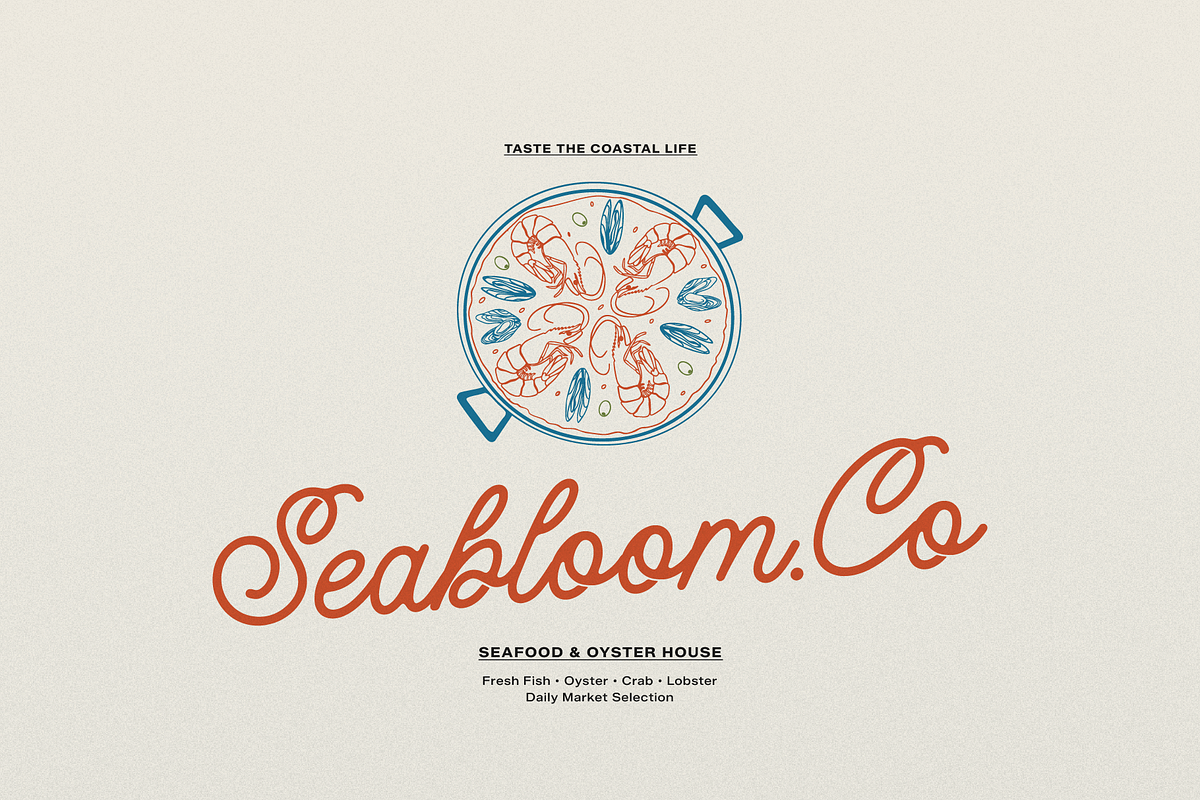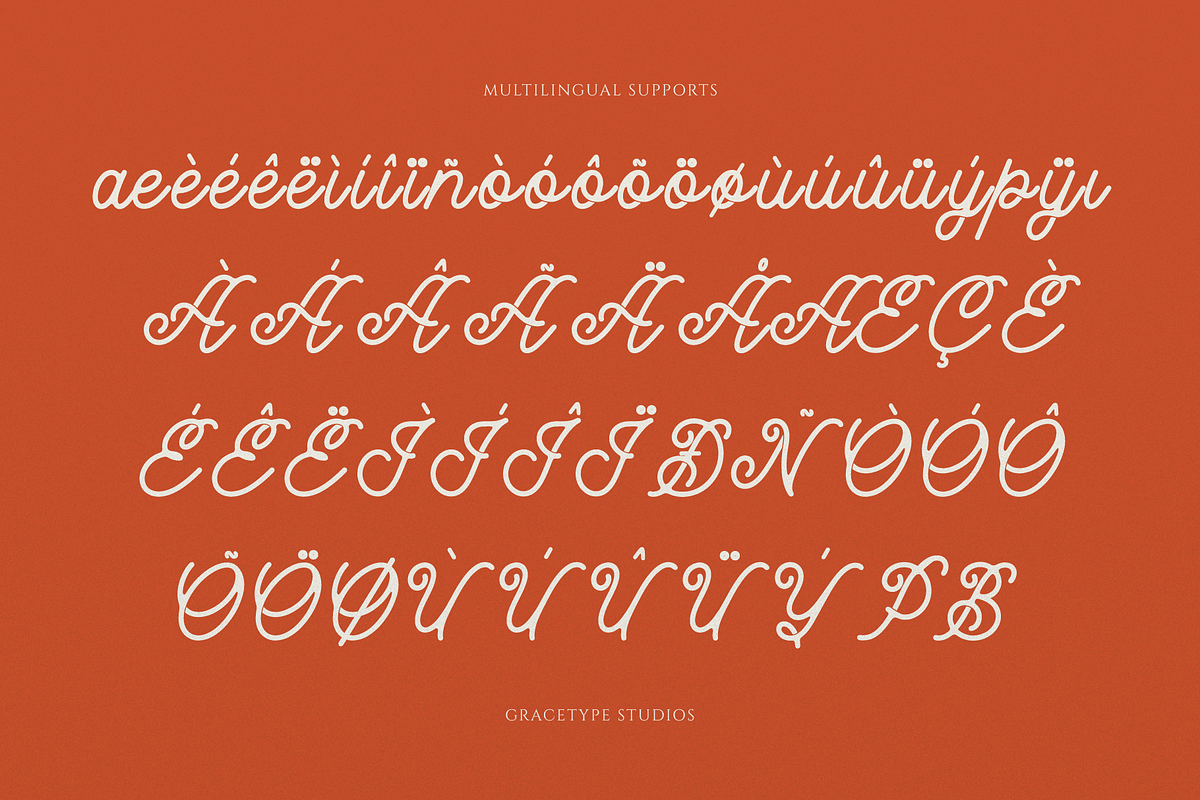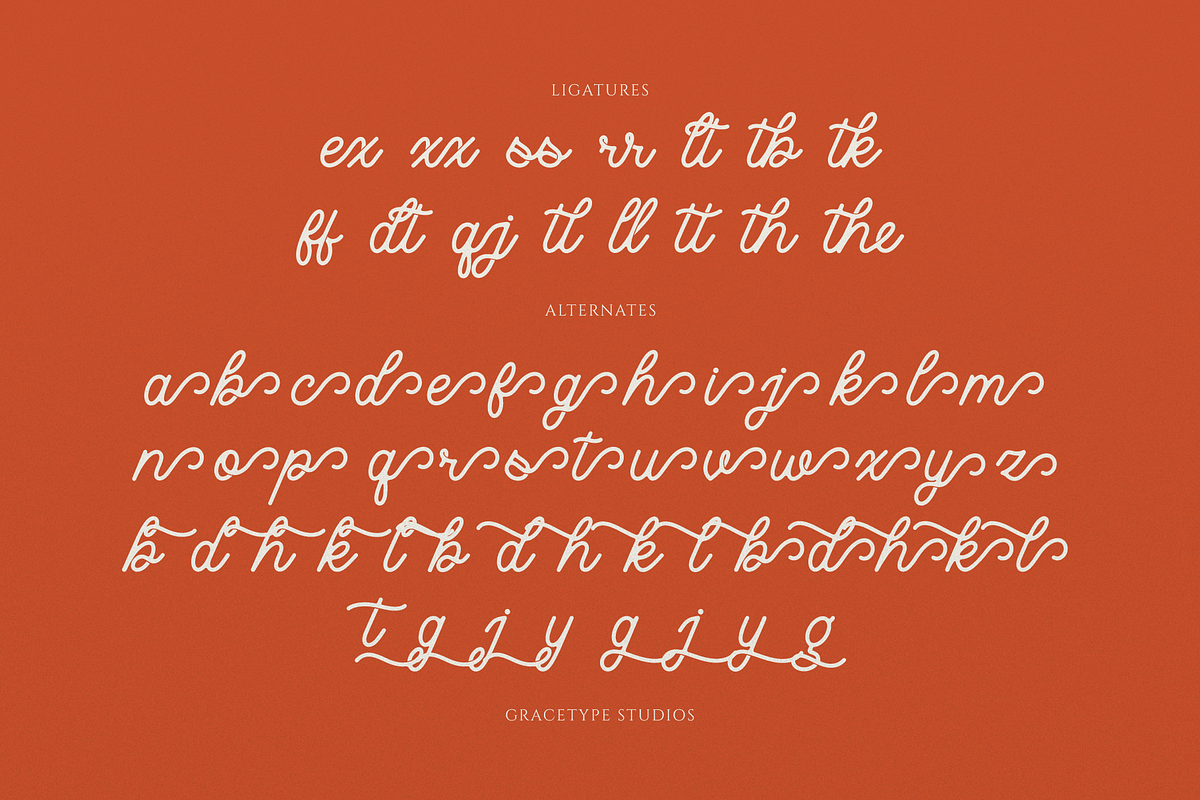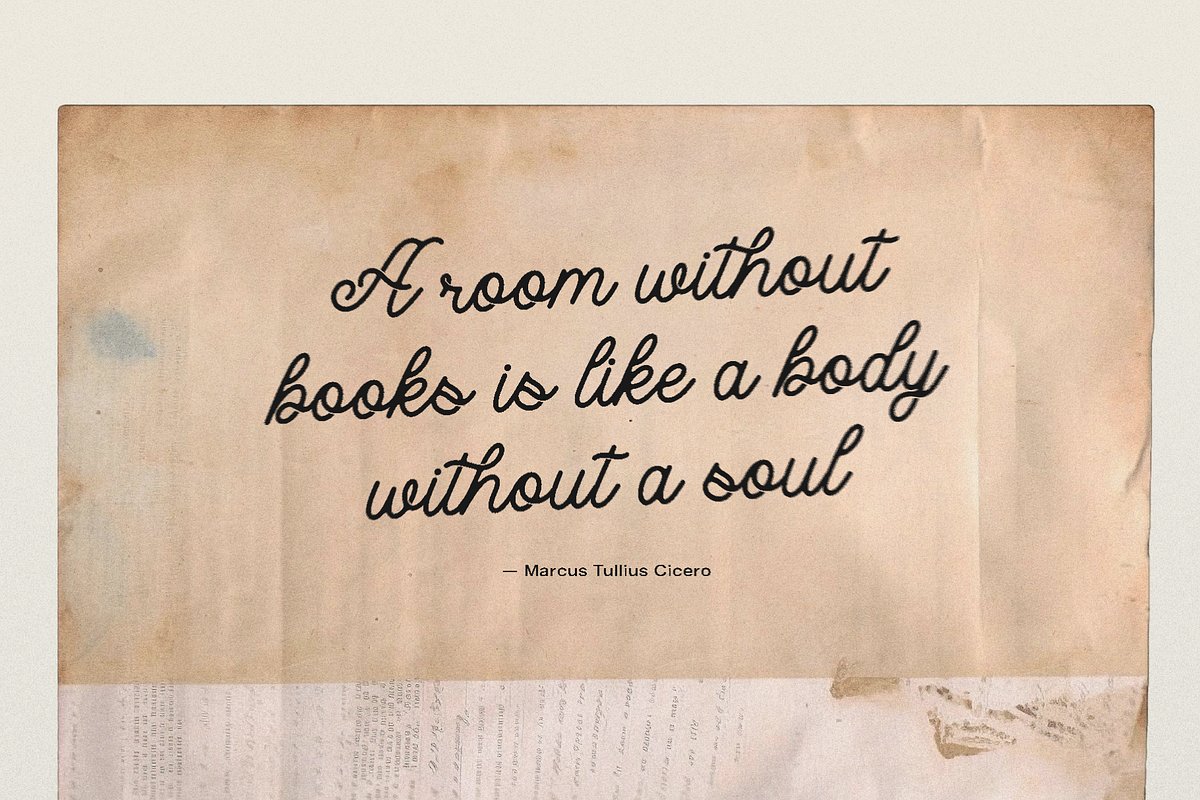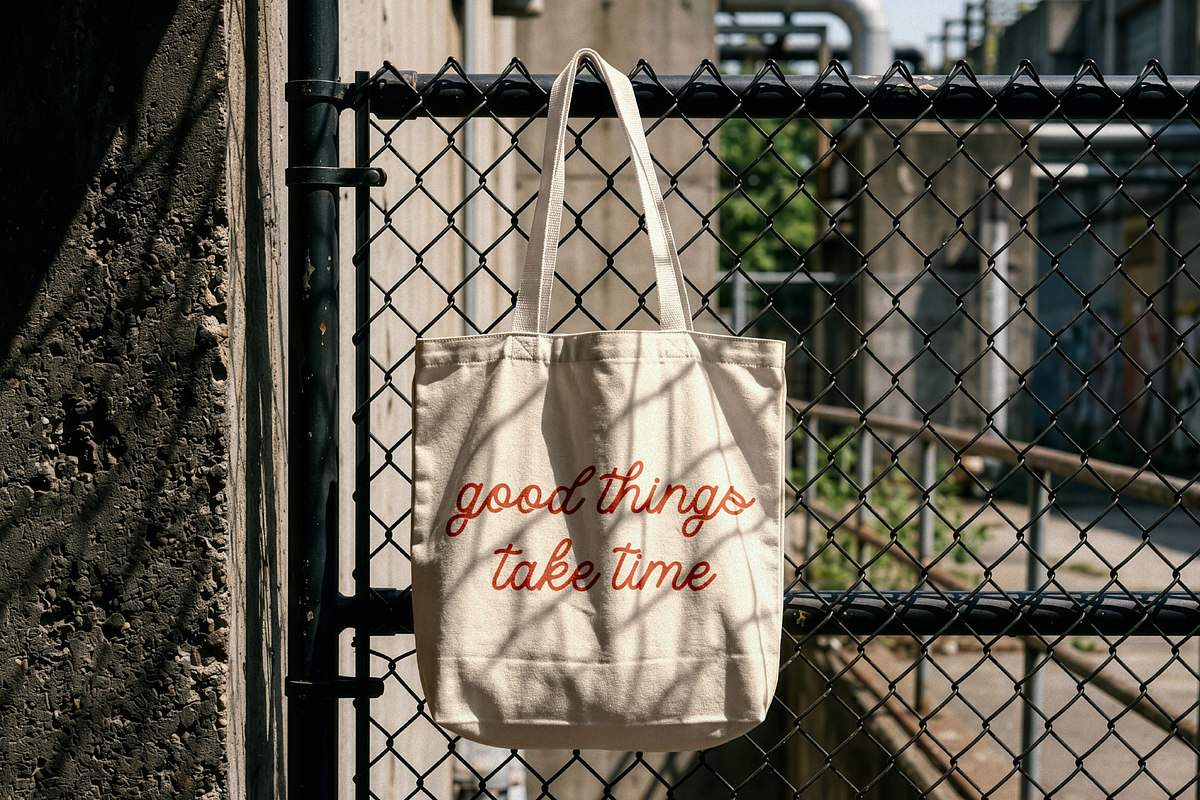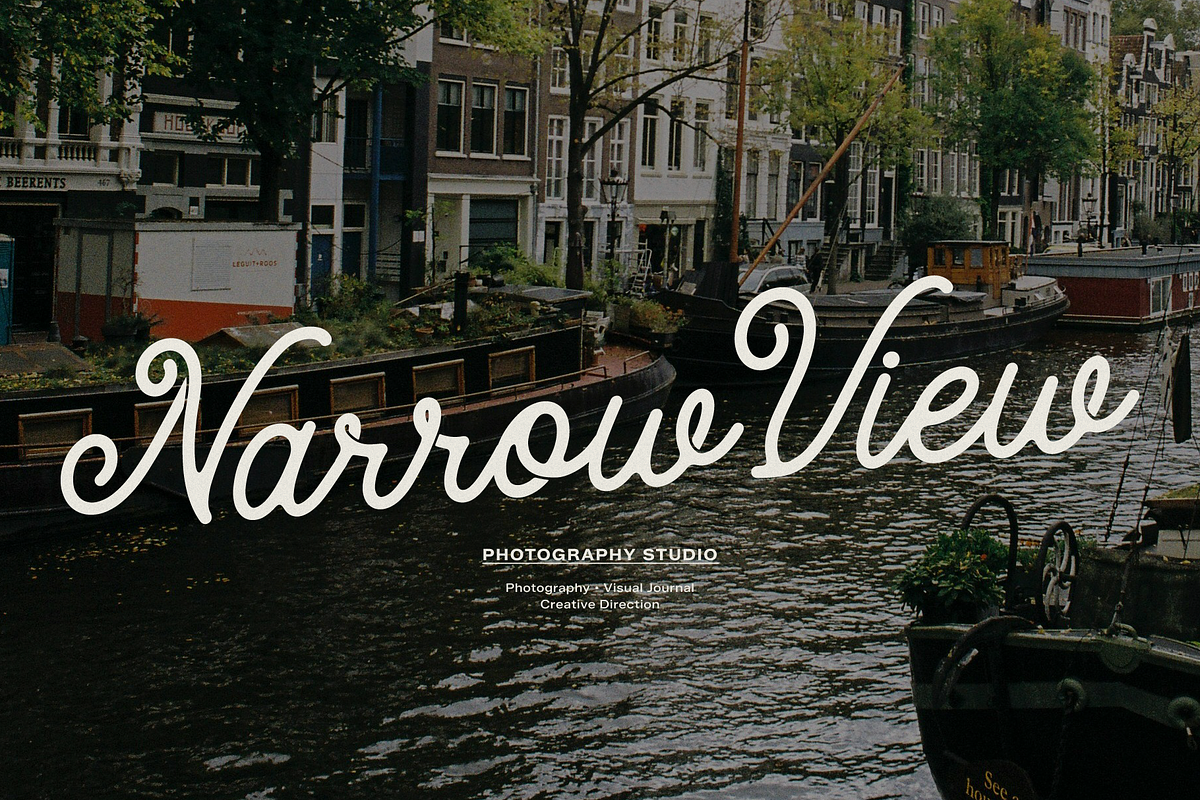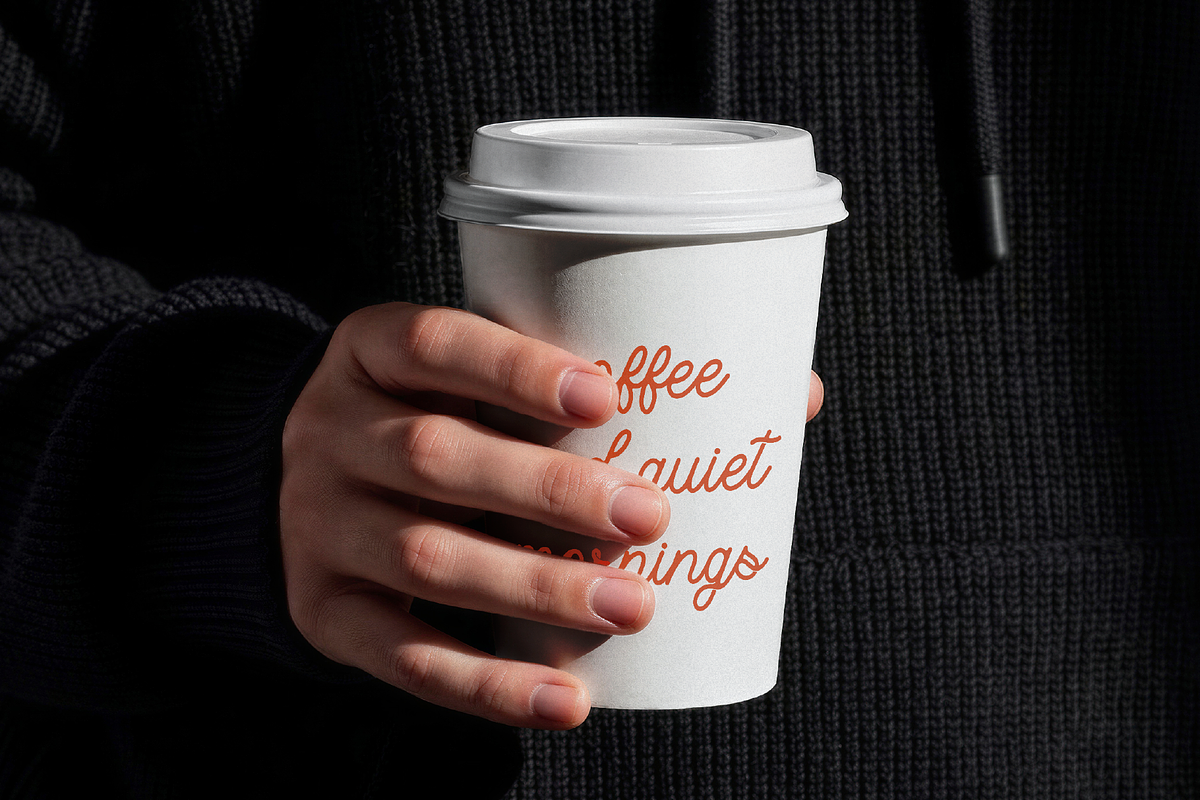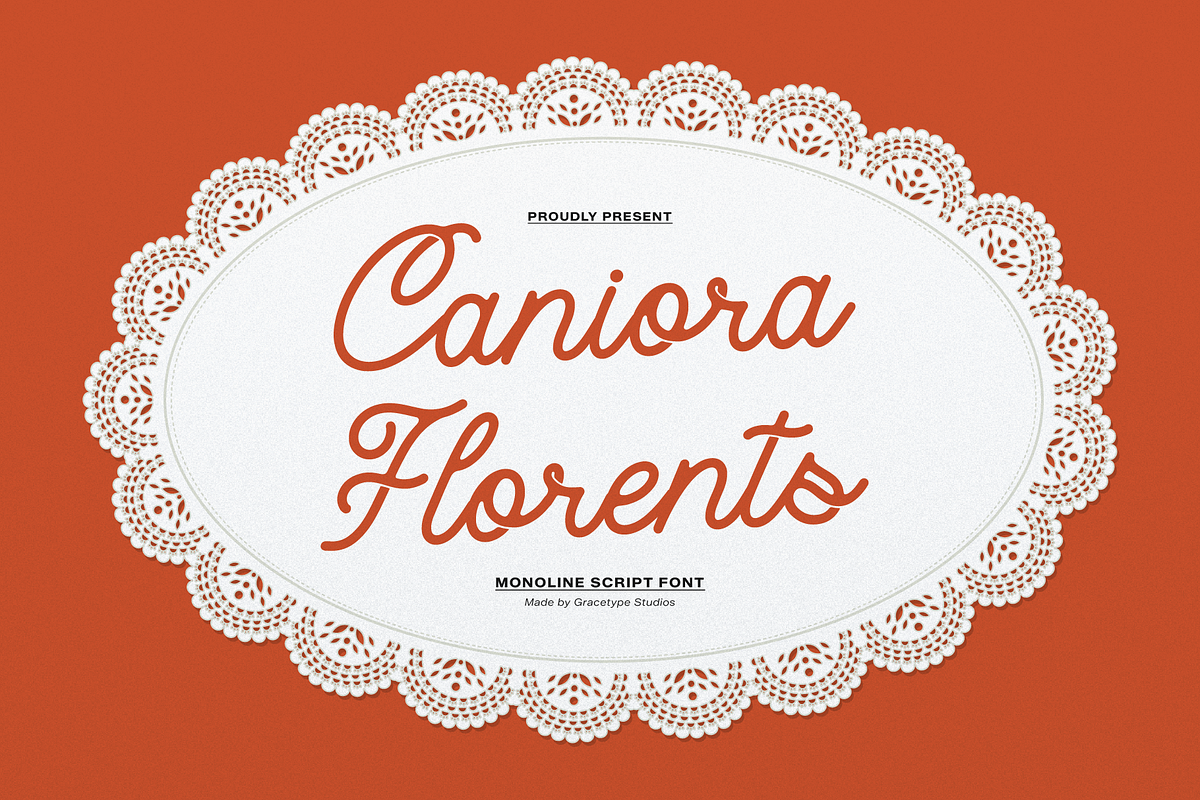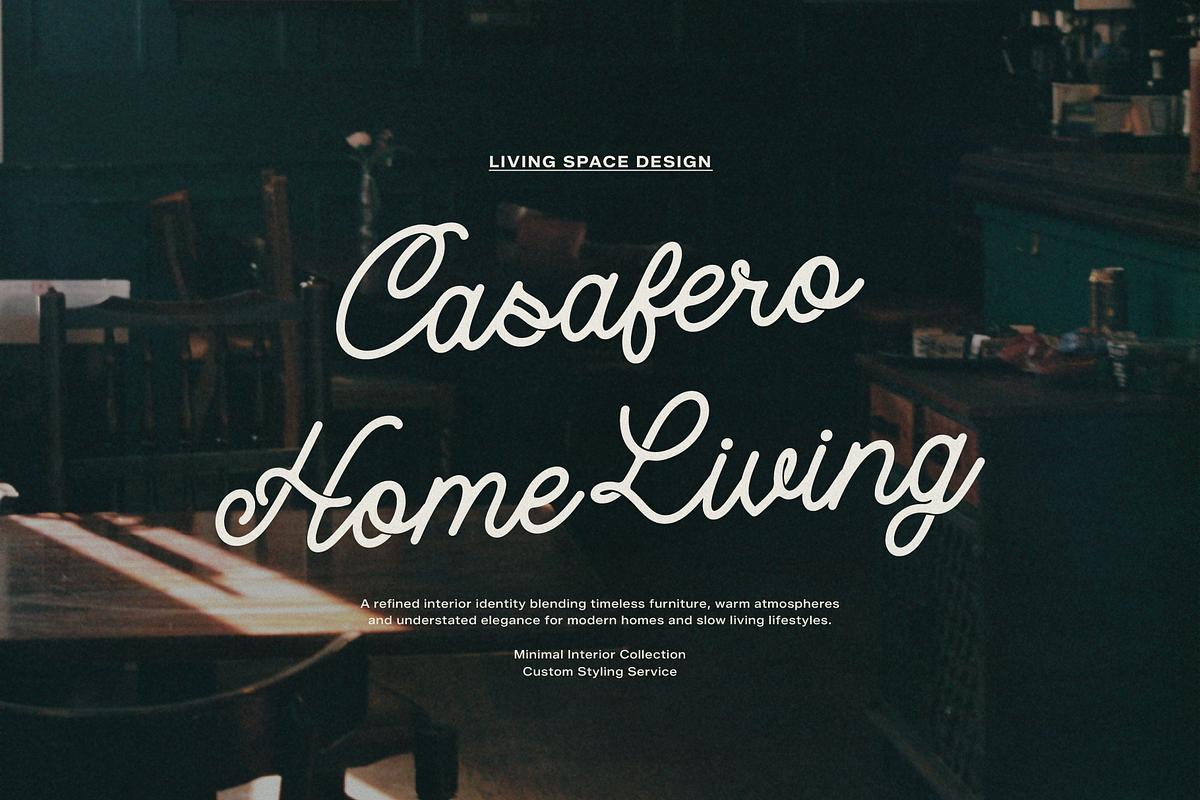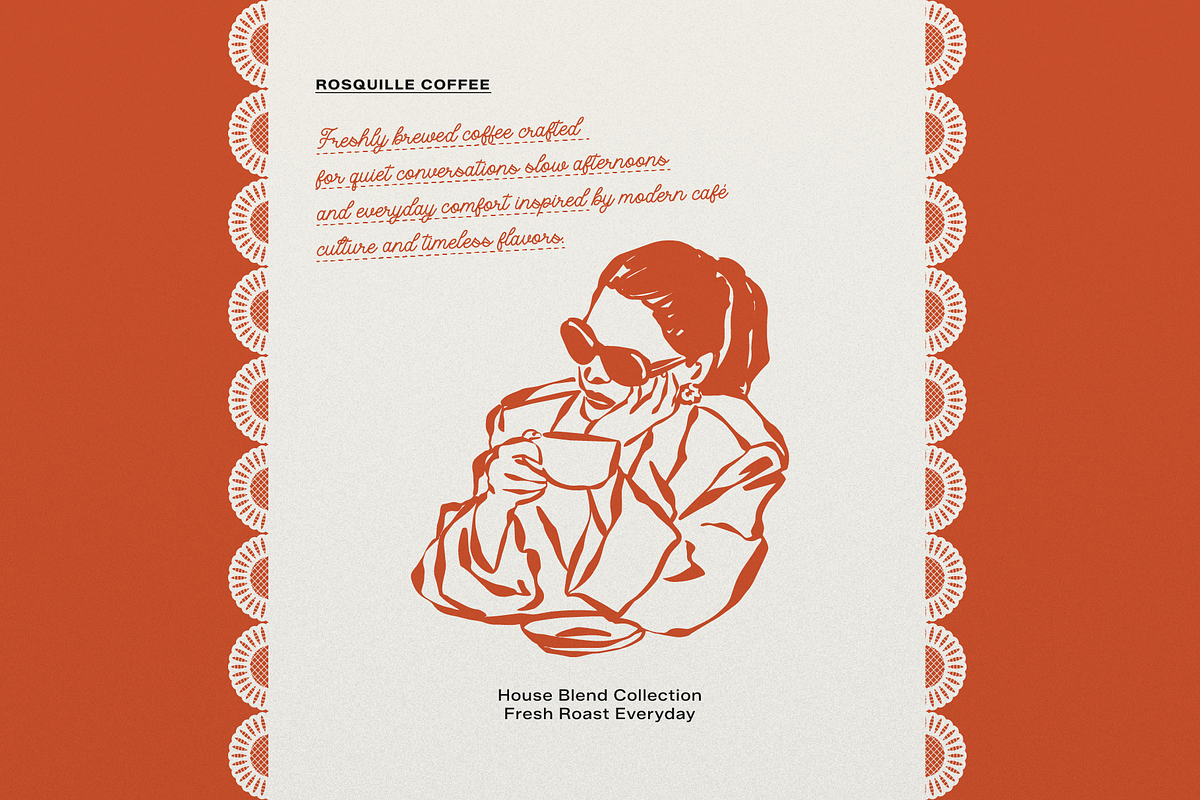
Caniora Florents | Monoline Script
Caniora Florents | Monoline Script Font, from Gracetypestudio, suitable for any projects such as: logos, branding projects, homeware designs, product packaging, mugs, quotes, posters, shopping bags, t-shirts, book covers, name card, invitation cards, greeting cards, label, photography, watermark, special events, and all your other lovely projects that need a Script taste.
Standard glyphs
Alternate and Ligature
Fonts include multilingual support